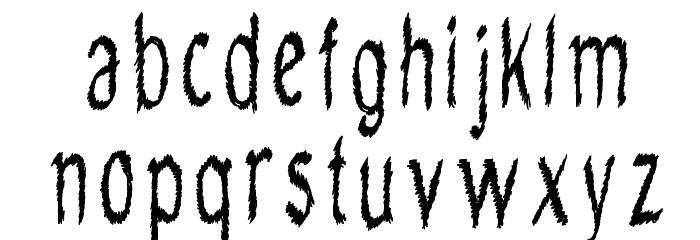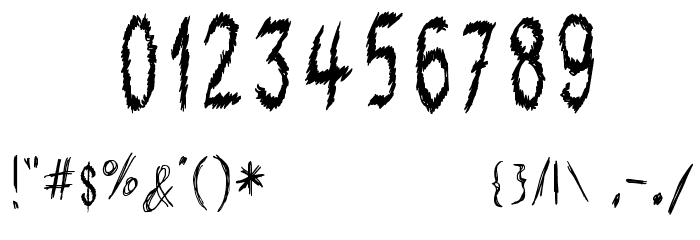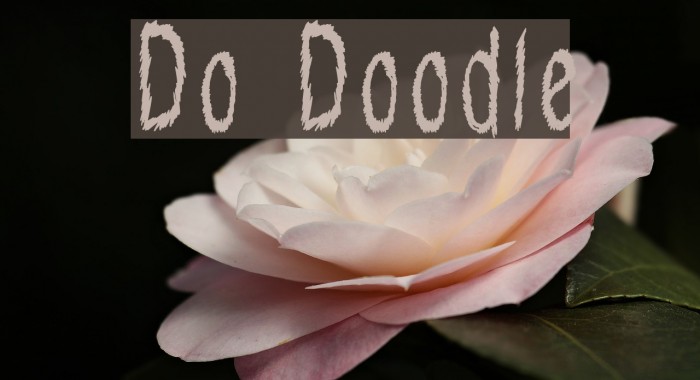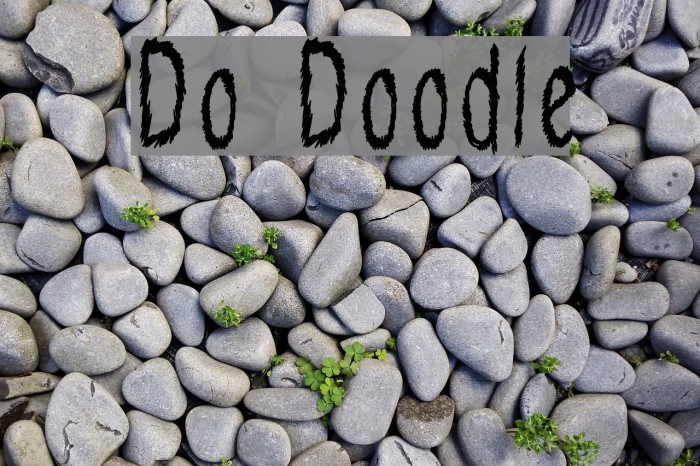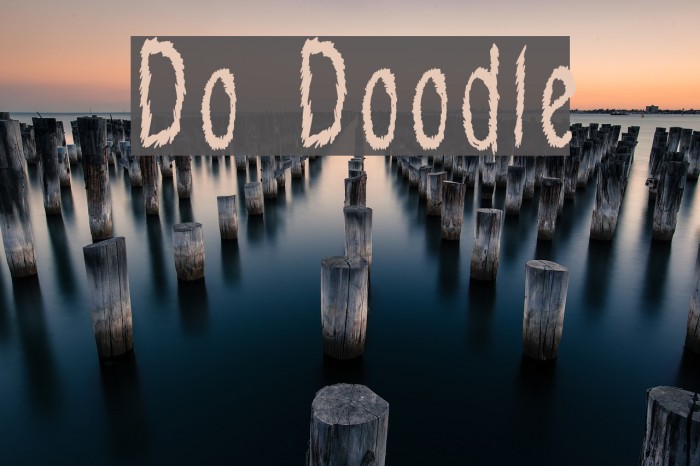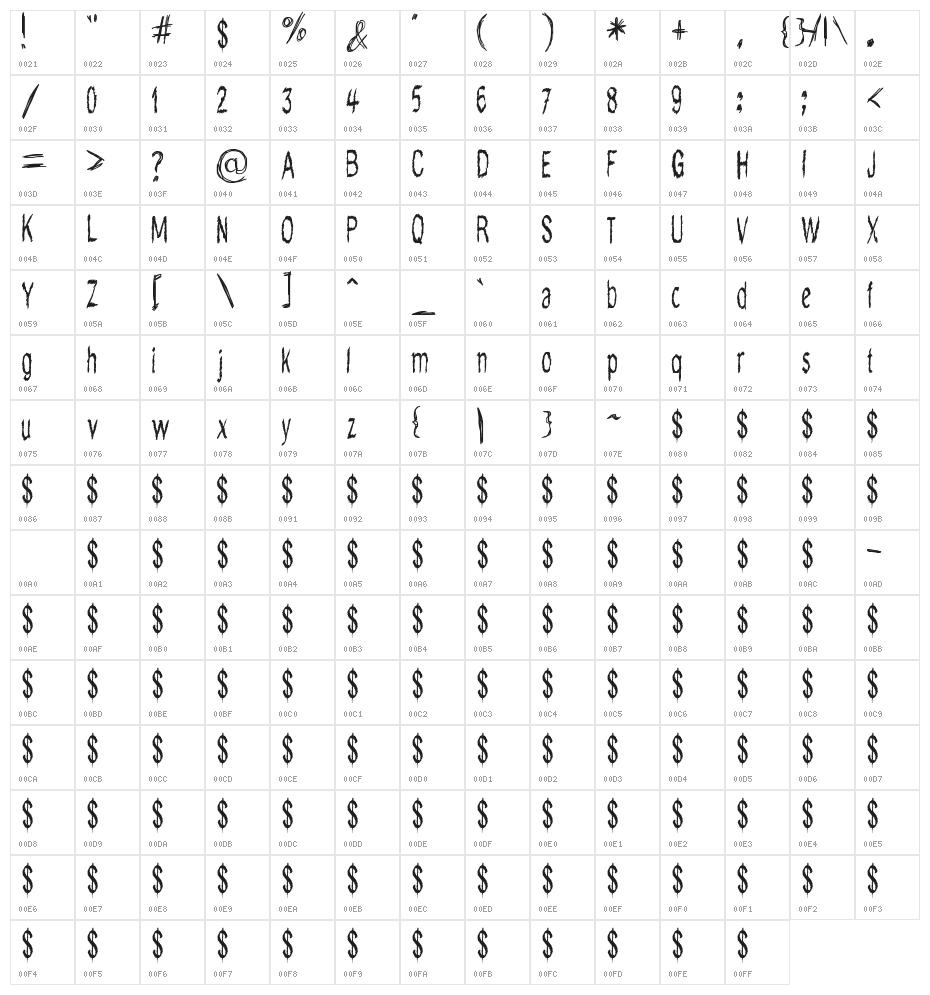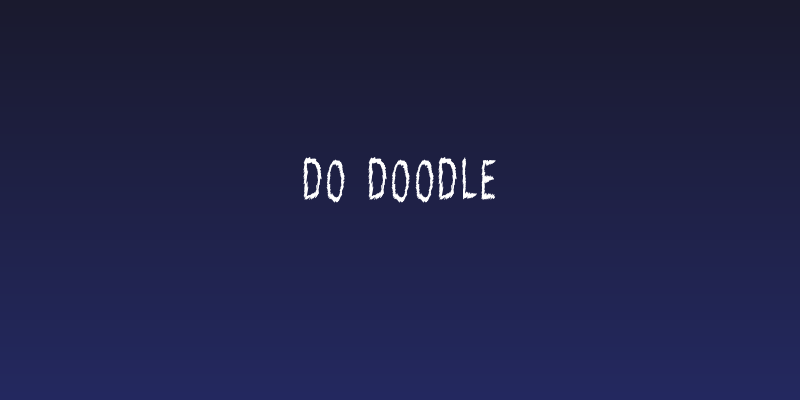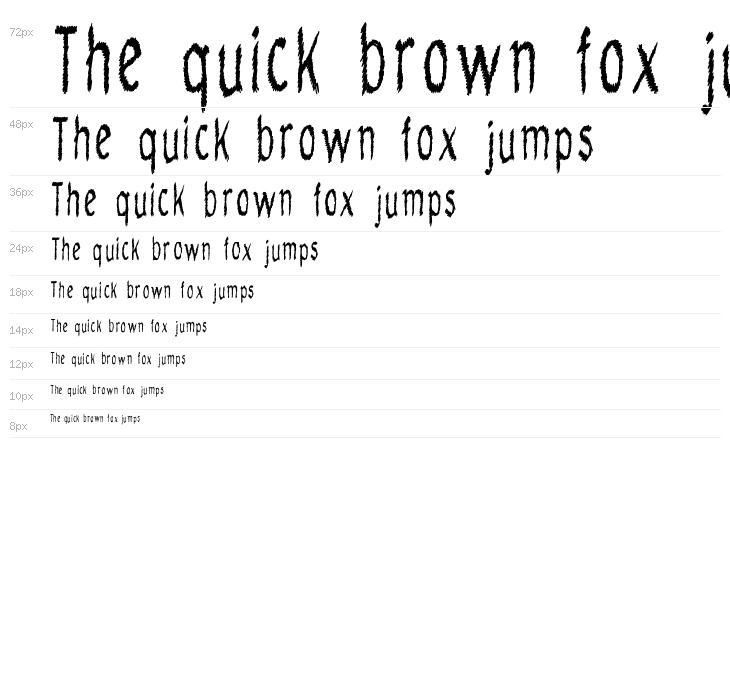
Do Doodle Font
This font features a unique, jagged design that gives it a hand-drawn, edgy appearance. The characters are irregular and dynamic, with sharp angles and a rough texture that suggests a sense of movement and energy. The uppercase and lowercase letters maintain a consistent style, while the numbers and special characters complement the overall aesthetic. This font is ideal for projects that require a bold, artistic touch, such as posters, album covers, or creative branding. Its distinctive style makes it stand out, capturing attention with its unconventional form.
A jagged, hand-drawn font with an edgy, dynamic appearance.
- Proposed Projects: Ideal for posters, album covers, creative branding, and artistic projects.